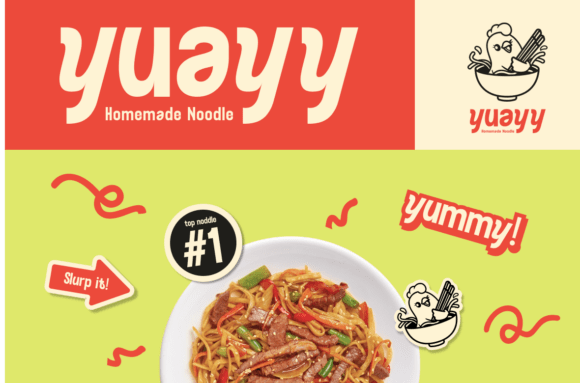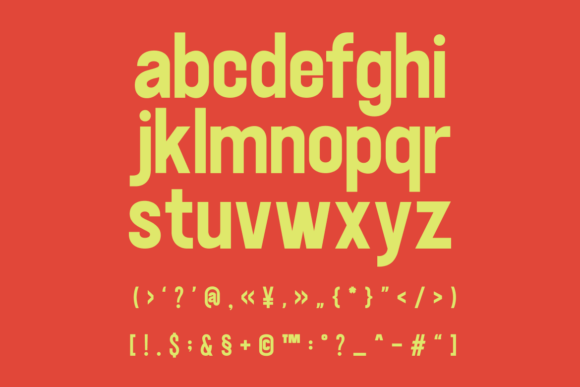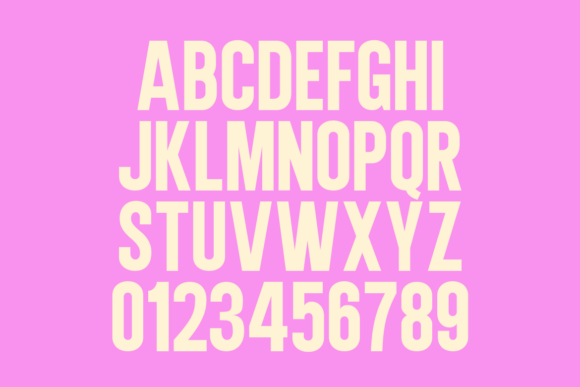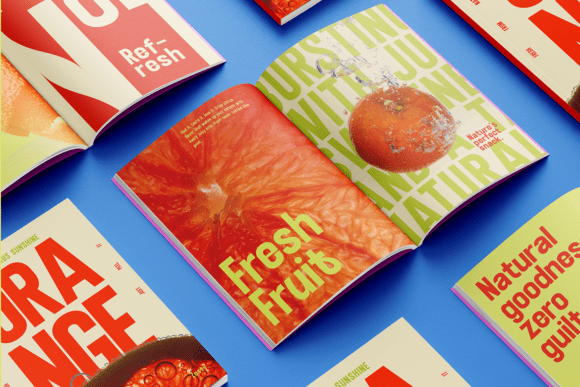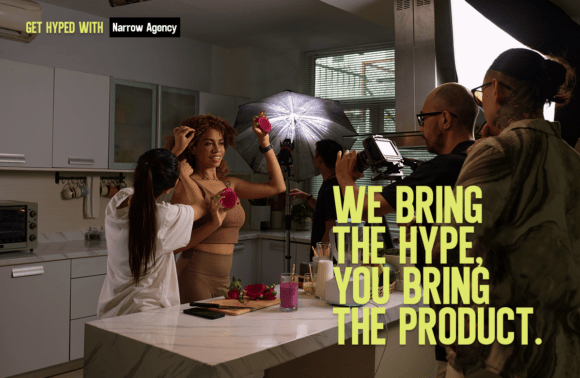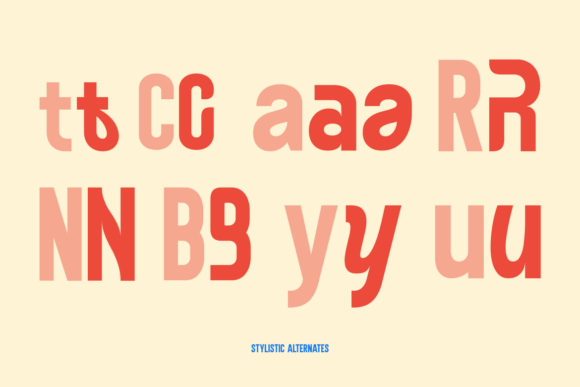
Introduction to Nayumi Font
Remember that moment when you stumbled upon the perfect font for your creative project? The one that elevates your design from ordinary to extraordinary? For designers, finding the right font can be a game-changer. It’s the difference between a bland, forgettable logo and a bold, attention-grabbing statement piece.
That’s where the Nayumi Font comes in – a high-quality, modern sans serif typeface designed to make a lasting impression. With its smooth curves, confident strokes, and clean contemporary structure, the Nayumi Font is the ultimate design resource for any creative project. Whether you’re designing packaging, merchandise, or social media content, this font is sure to “pop” and leave a lasting impact.
Nayumi Font
- High-quality, hand-drawn design ideal for creative projects and illustrations.
- Perfect for use in digital art, graphic design, and other creative projects where a unique, hand-drawn feel is desired.
Honest Review: Nayumi Font
I recently had the chance to try out the Nayumi Font, a free design resource that caught my attention. The first thing that stood out to me was its high quality and beautiful, elegant design. The Nayumi Font is perfect for any creative project that needs a touch of sophistication.
One of the features I appreciated the most was its transparent background, which makes it super easy to use in various design contexts. This is a huge plus for designers who value flexibility in their design resources.
Here are some of the things that work well with the Nayumi Font:
- High quality design that’s perfect for creative projects
- Only available in a few font styles, which might limit its use in certain projects
- No support for custom font sizes or colors, which could be a drawback for some designers
Overall, I’m impressed with the Nayumi Font, and I think it’s a great addition to any designer’s toolkit. While it may have some limitations, its high quality design and transparent background make it a valuable resource for any creative project.
Nayumi Font
The Nayumi Font is a high-quality design resource ideal for creative projects that require a unique and elegant touch. This free download offers a transparent background, making it perfect for overlaying on images or using as a standalone element.
Tips for Getting the Most Out of the Nayumi Font
To maximize the impact of the Nayumi Font, use it in combination with high-quality images and carefully curated design elements.
Experiment with different font sizes, colors, and styles to create a unique and eye-catching design.
The Nayumi Font is ideal for:
Branding and logo design
Photography overlays and captions
Blog and social media graphics